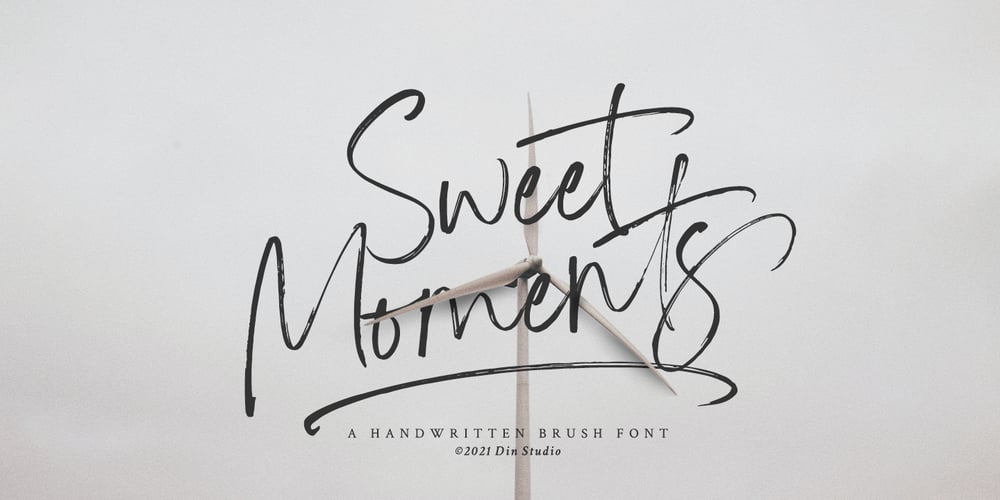
Sweet Moments Font Family was designed by Donis Miftahudin and published by Din Studio. Sweet Moments contains 2 styles and family package options. Is your branding missing something that makes people going WOW? Have you thought about how you can add that touch of magic to your branding and projects? What if we told you that we have solution to maximize your designs?Introducing Sweet Moments-A Handwritten Brush Font This font is more than just another brush font. It encapsulates the essence of luxury and elegance. With elegance and passion edged into every curve and twist of this brush font – you’ll be sure to boost your sales and make best impressions. This font become more special with many swash version option. Use it for headings, logos, business cards, printed quotes, invitations of all sorts, cards, packaging, and your website or social media branding. Sweet Moments includes Multilingual Options to make your branding globally acceptable. Features: Beautiful Ligatures Stylistic Sets Alternates Swashes Multilingual Support (84 languages) PUA Encoded Numerals and Punctuation Thank you for downloading premium fonts from Din Studio